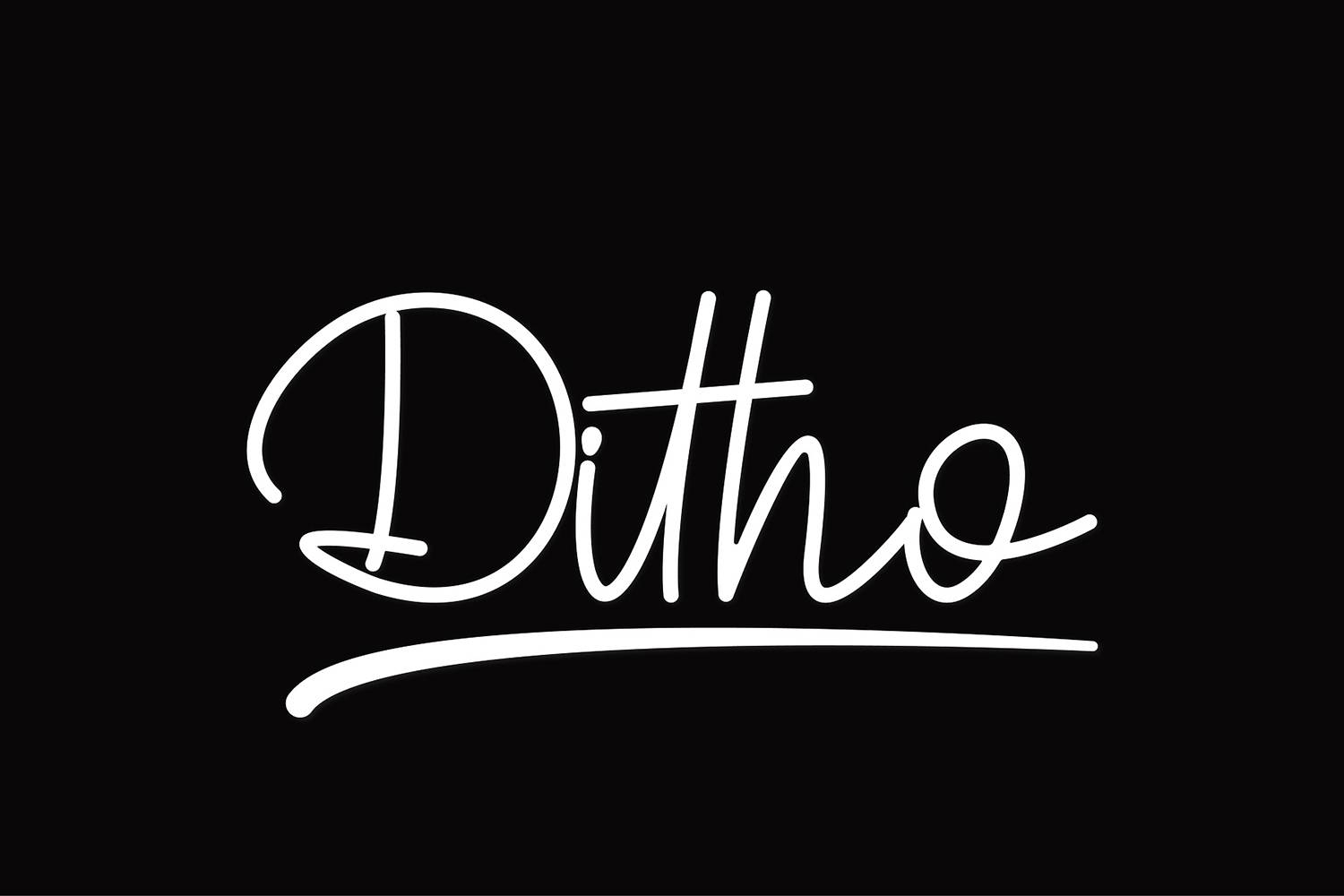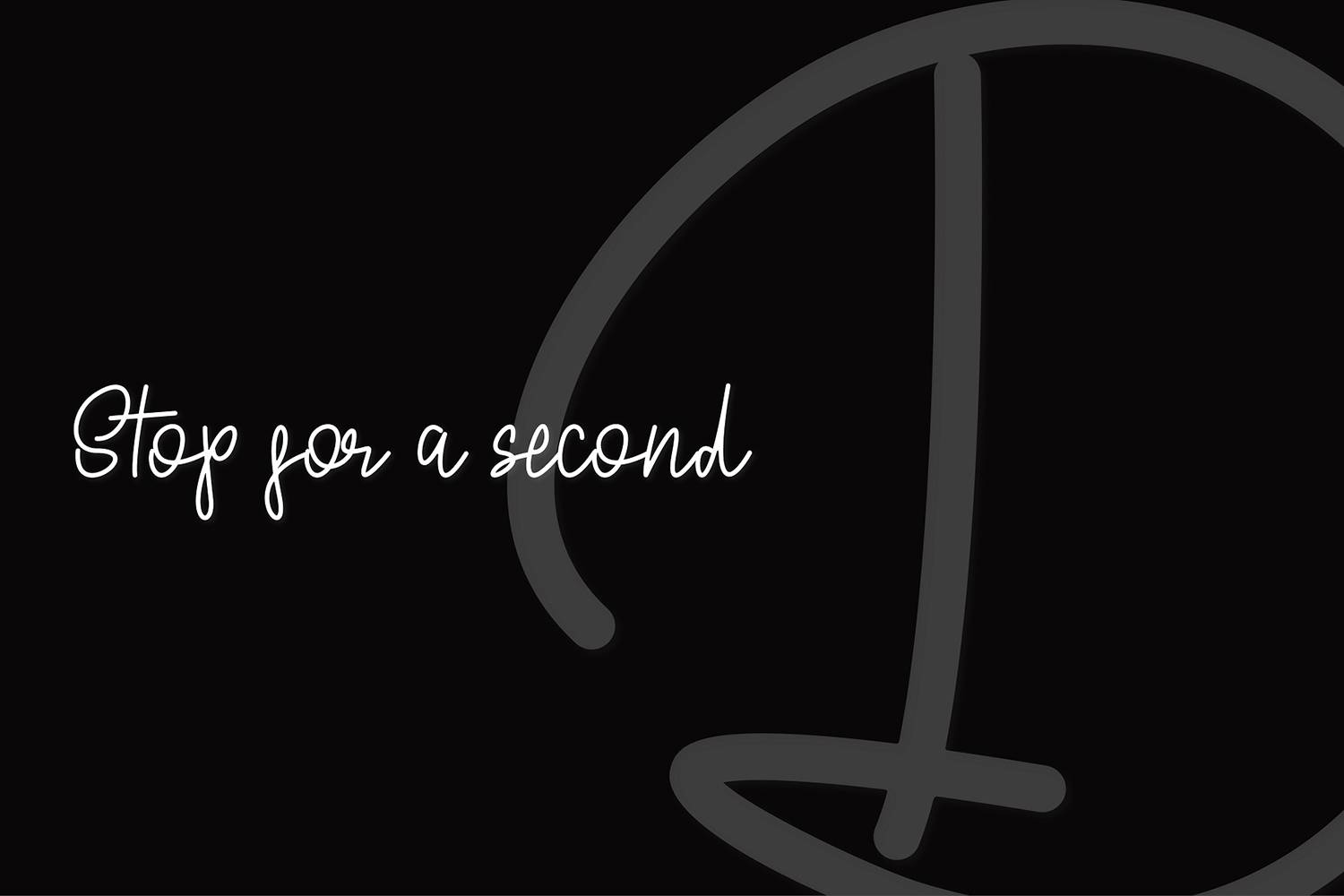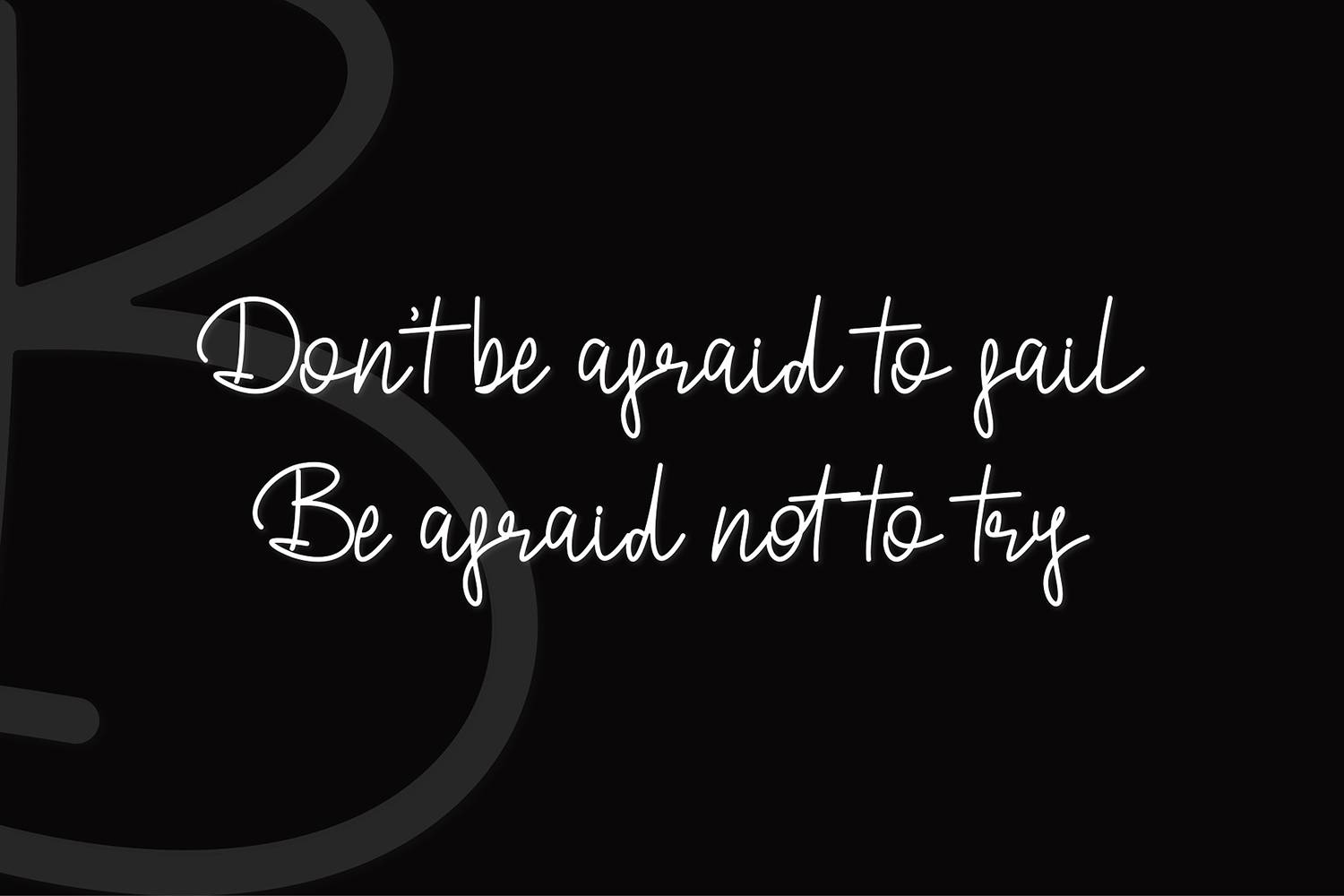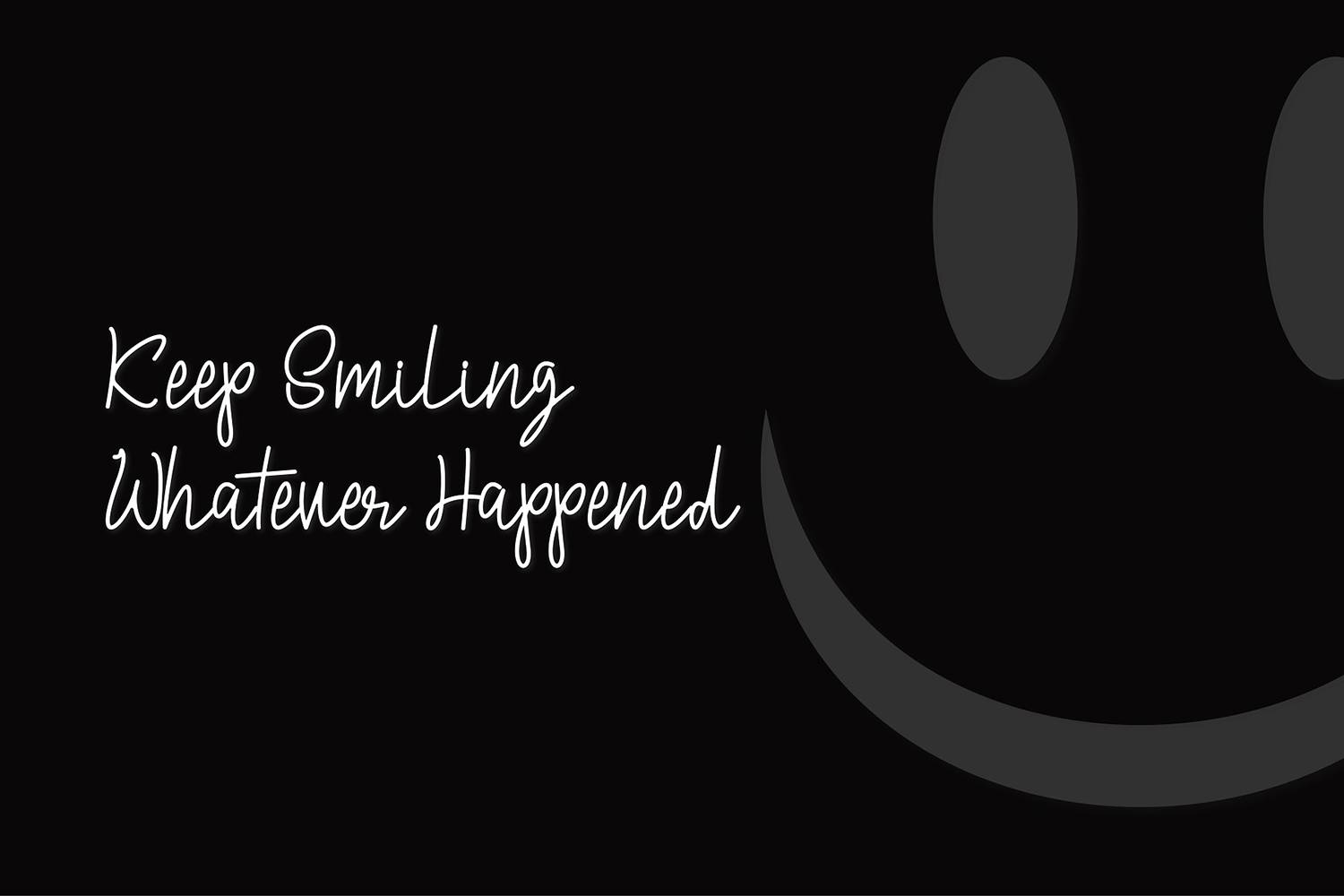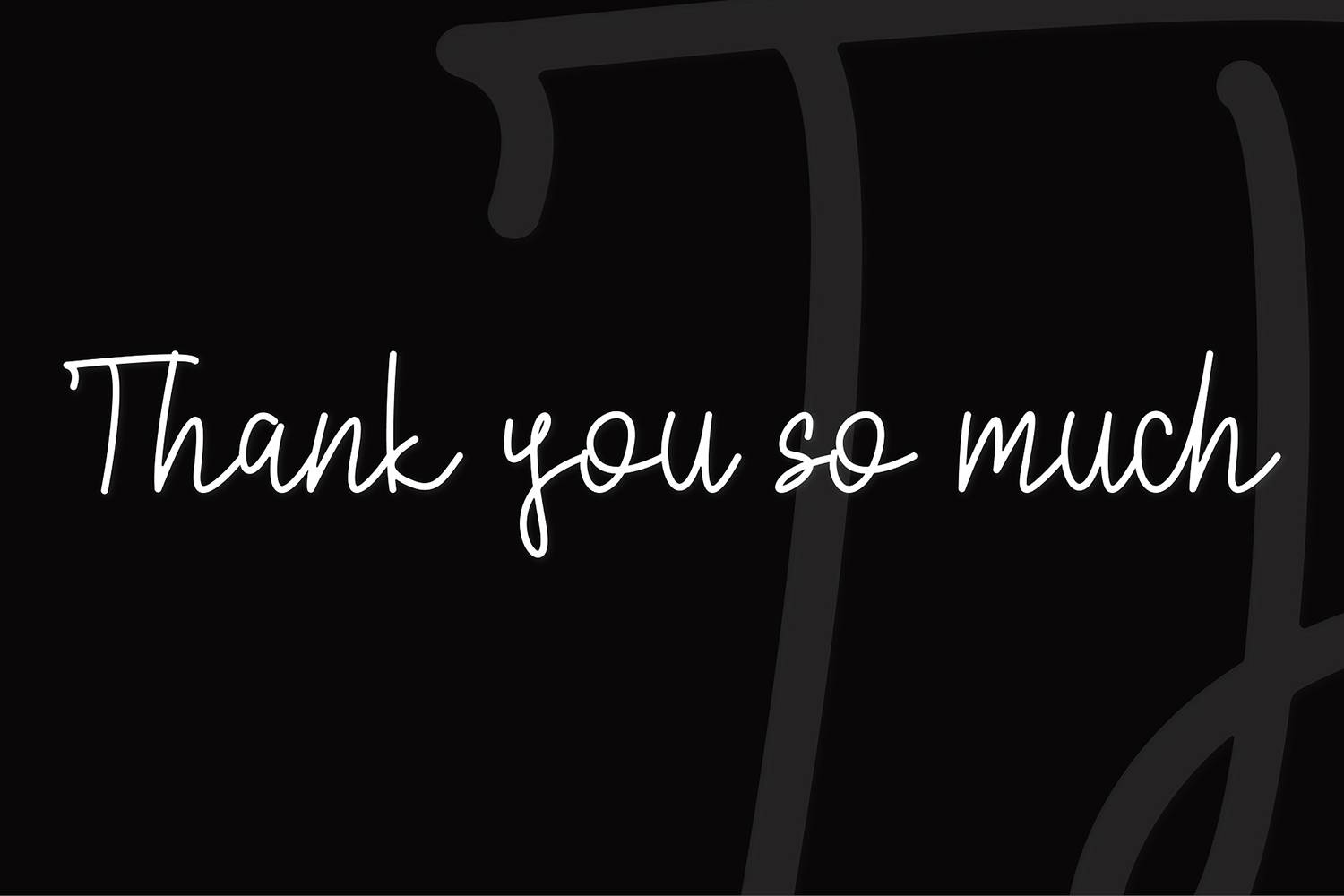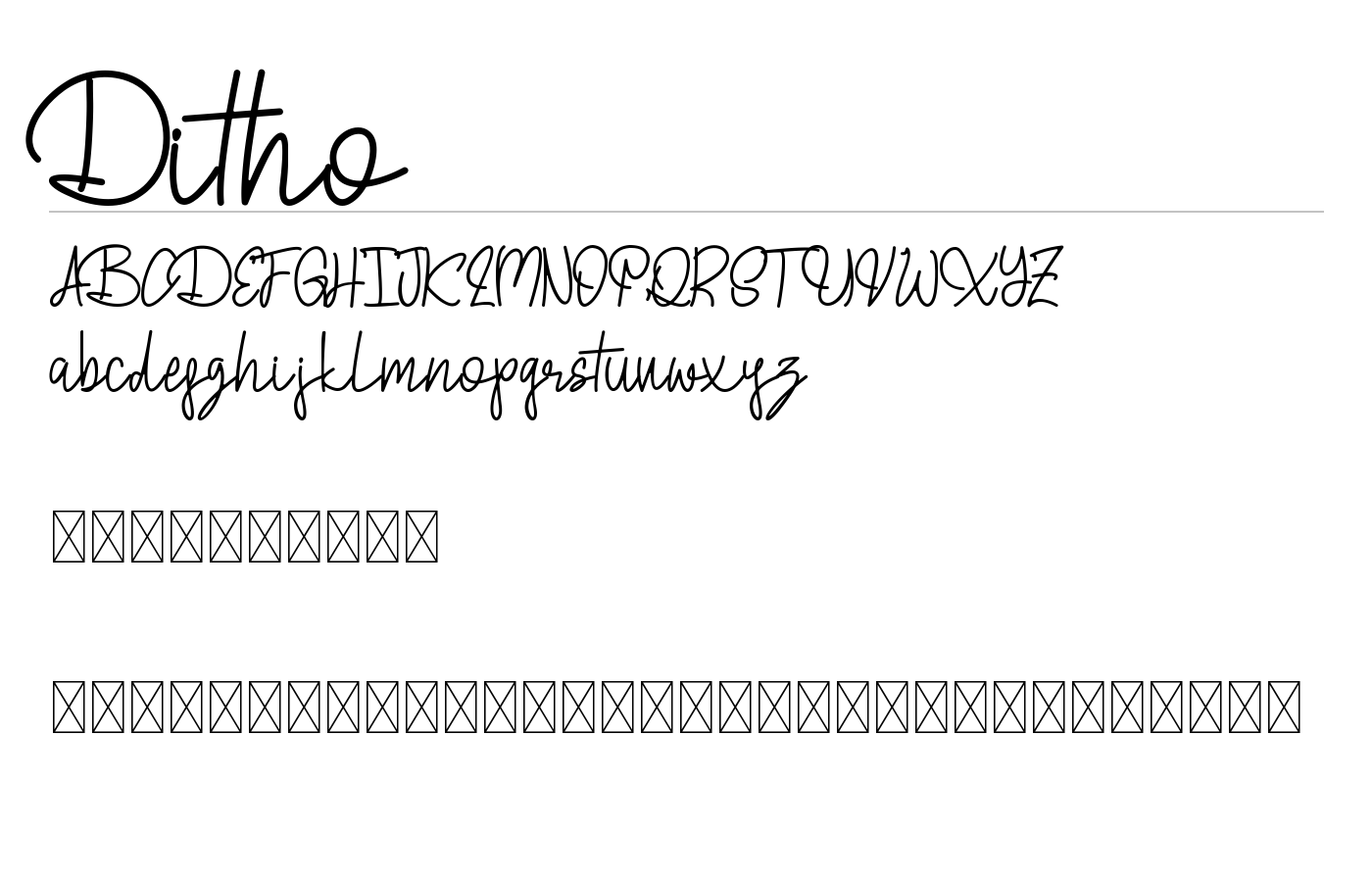
Ditho is a playful and modern handwritten script font characterized by its thin, fluid strokes and casual yet elegant letterforms. Its tall, narrow style with connected lowercase letters gives it a personal and approachable feel, making it ideal for creative branding, invitations, and informal headlines where a friendly, handwritten touch is desired. This font works best in contexts that benefit from warmth and personality rather than formal or highly structured designs.
Ditho Font
About Ditho Font
| Font family | Ditho Font |
| Release date | 2020-09-07 |
| Designer | Taufiq Wijaya |